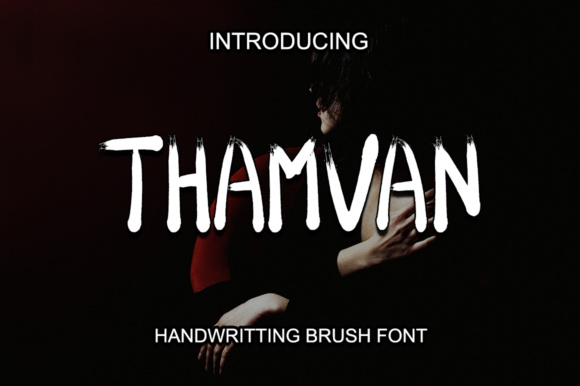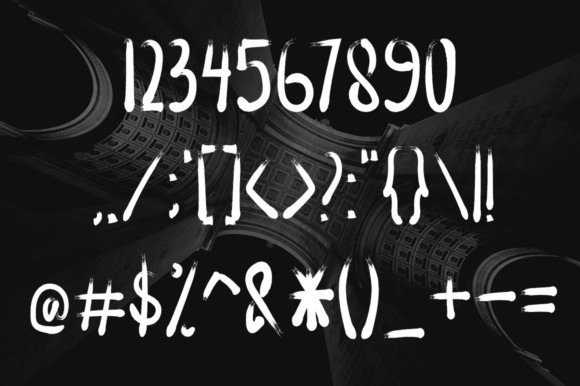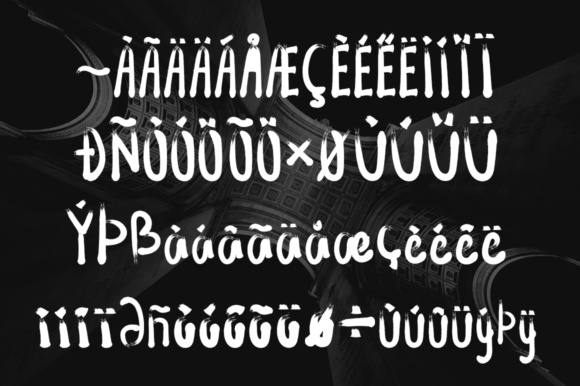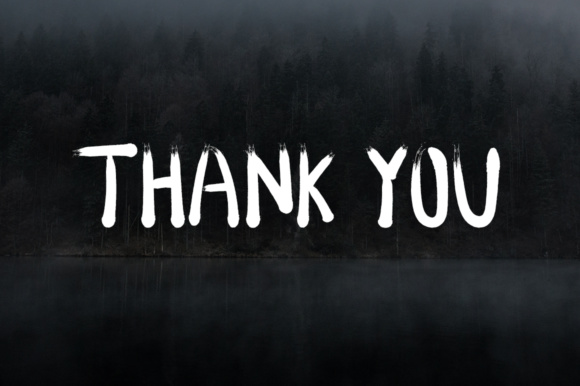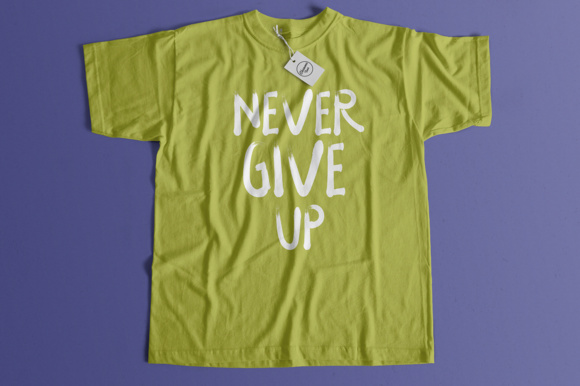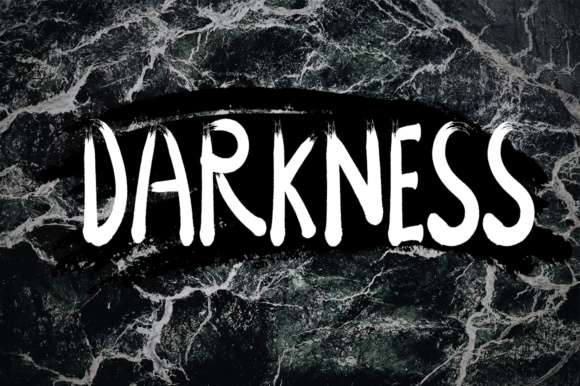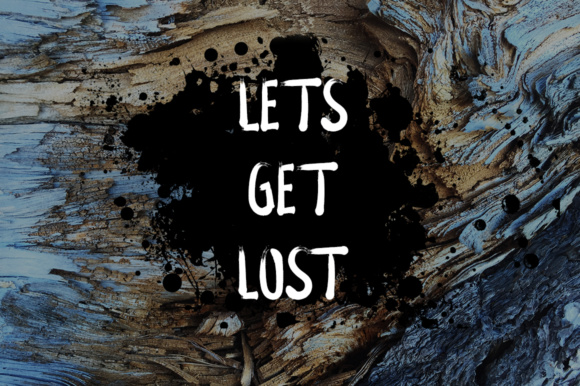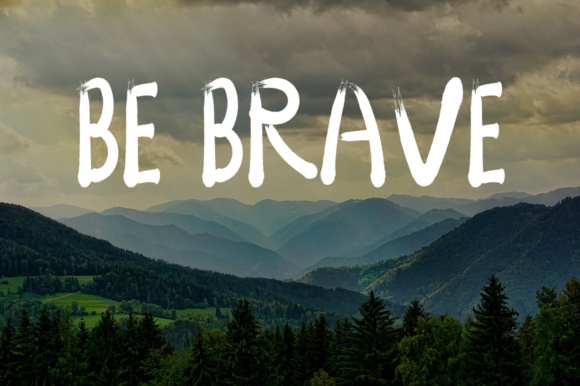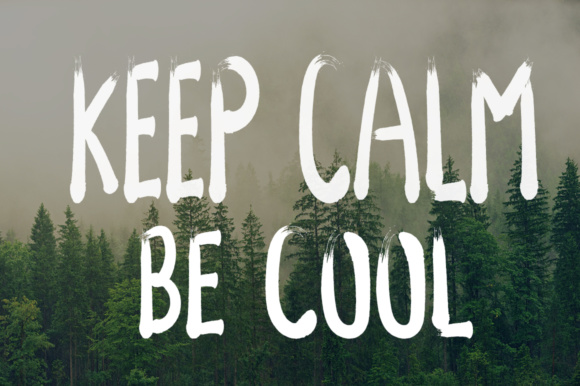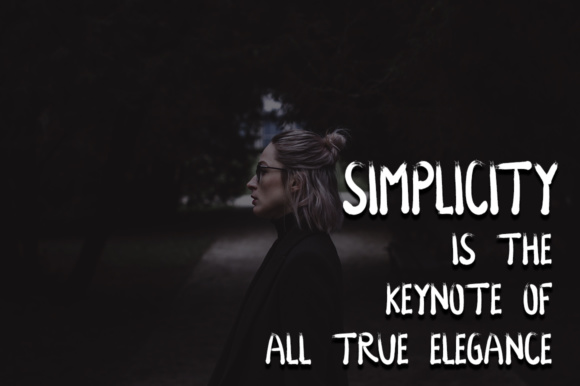
HomeScript FontsThamvan Font Script Fonts Thamvan Font FacebookXPinterestWhatsApp Thamvan Font Poster 2 Thamvan Font Poster 3 Thamvan Font Poster 4 Thamvan Font Poster 5 Thamvan Font Poster 6 Thamvan Font Poster 7 Thamvan Font Poster 8 Thamvan Font Poster 9 Thamvan Font Poster 10 Thamvan Font Poster 11 Thamvan Font Poster 12 About Thamvan Font The Thamvan Brush font is a textured dry brush that will give a punch to our designs. DOWNLOAD ON CREATIVE FABRICAThis font is sold and delivered by Creative Fabrica. Font Canyon may earn a commission if you buy through this link. People also explored Retrochromic Font Coldera Font Handstitch Script Font Christmas Valentine Font Sea Doodle Font Grinch Font Douceur Summer Days Font Beauty Christmas Font 359 0 TagsThamvan Font Previous articleAirlangga FontNext articleBest Deals Font LEAVE A REPLY Cancel reply Comment: Please enter your comment! Name:* Please enter your name here Email:* You have entered an incorrect email address! Please enter your email address here Website: Save my name, email, and website in this browser for the next time I comment. Personal Use Free Cuttie Personal Use Free Read more about this font Sweet Beautiful Personal Use Free Read more about this font Consequences Personal Use Free Read more about this font Bally Girl Personal Use Free Read more about this font BLOG Best Fonts for T-Shirt Design – Top 2025 Picks In 2025, t-shirt design has become more than just fashion—it's a form of self-expression. Whether you're... Top 10 Handwritten Fonts That Elevate Your Designs Modern Sans-Serif Fonts That Brands Love in 2025 5 Fonts That Will Dominate Design Trends in 2026